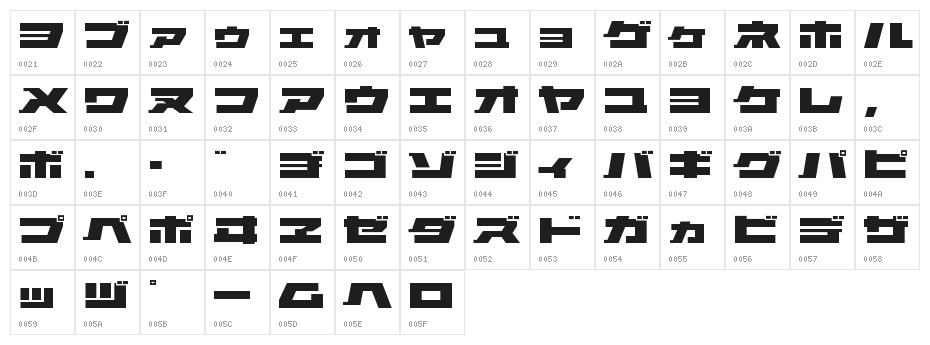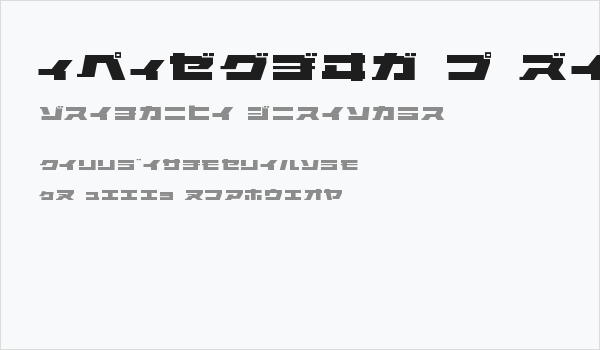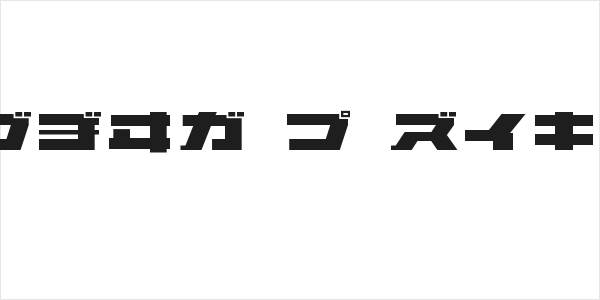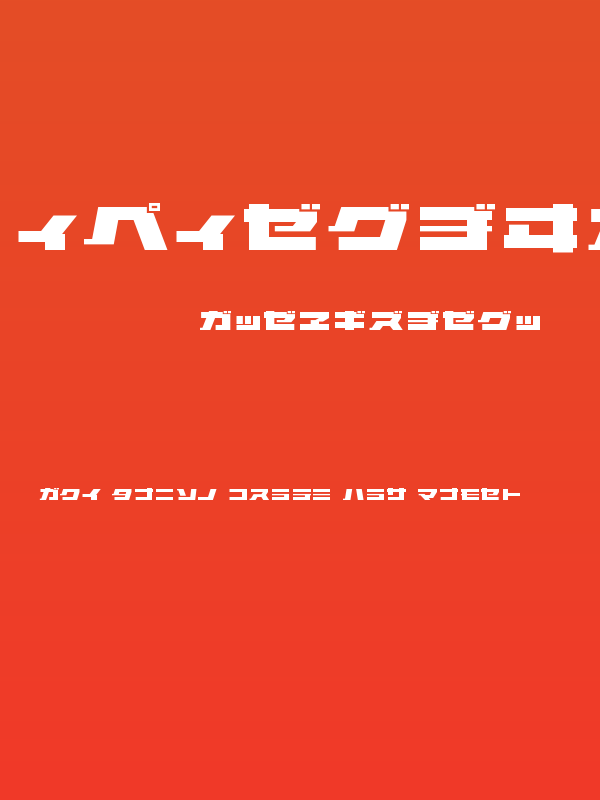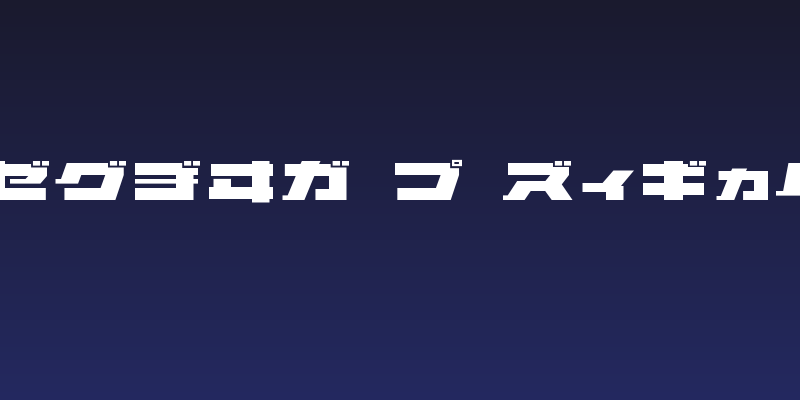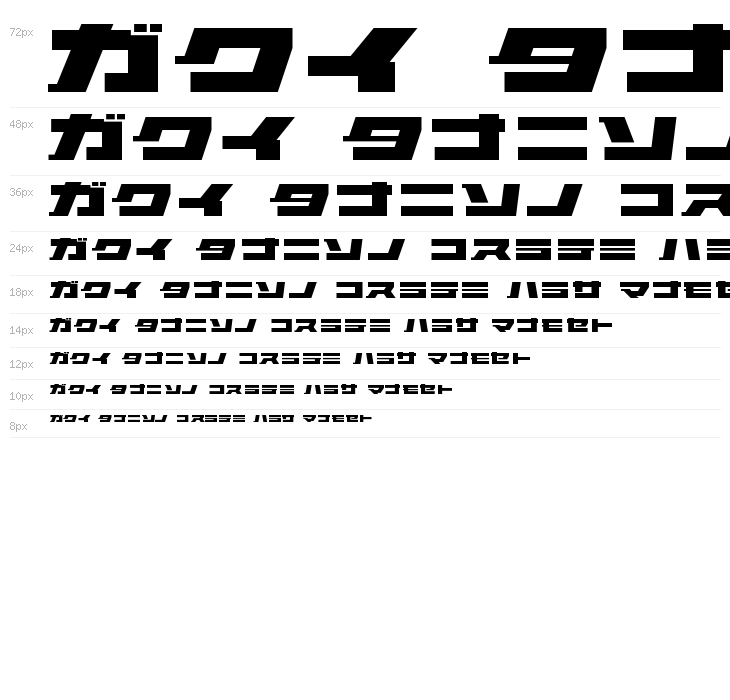
ELEPHANT K Regular Font
ELEPHANT K Regular Description
This font features bold, geometric shapes with a strong presence. The characters are constructed with thick, uniform strokes, giving them a robust and solid appearance. The style is reminiscent of digital or pixelated designs, with a modern and futuristic feel. The characters are evenly spaced, maintaining a consistent width throughout. This font is highly legible and makes a strong visual impact, suitable for attention-grabbing headlines or titles. Its unique style is characterized by sharp angles and a blocky structure, making it stand out in any design context.
| Proposed Projects | Ideal for digital media, video game titles, tech branding, and futuristic-themed posters. |